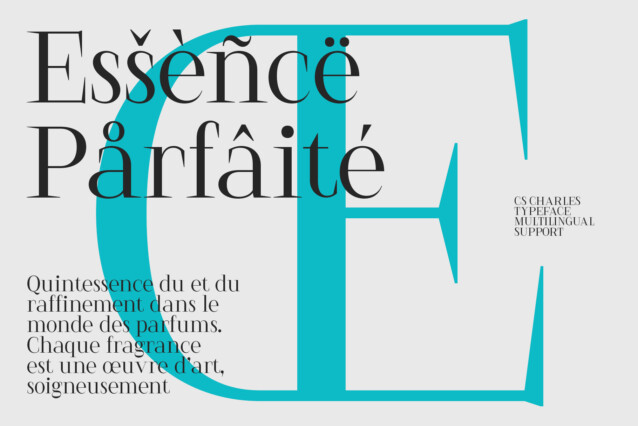
CS Charles Font
CS Charles Font stands out with its classic serif design, featuring clean, precise lines and balanced proportions. This design choice makes it ideal for formal documents, corporate branding, and editorial projects, where professionalism and readability are paramount.